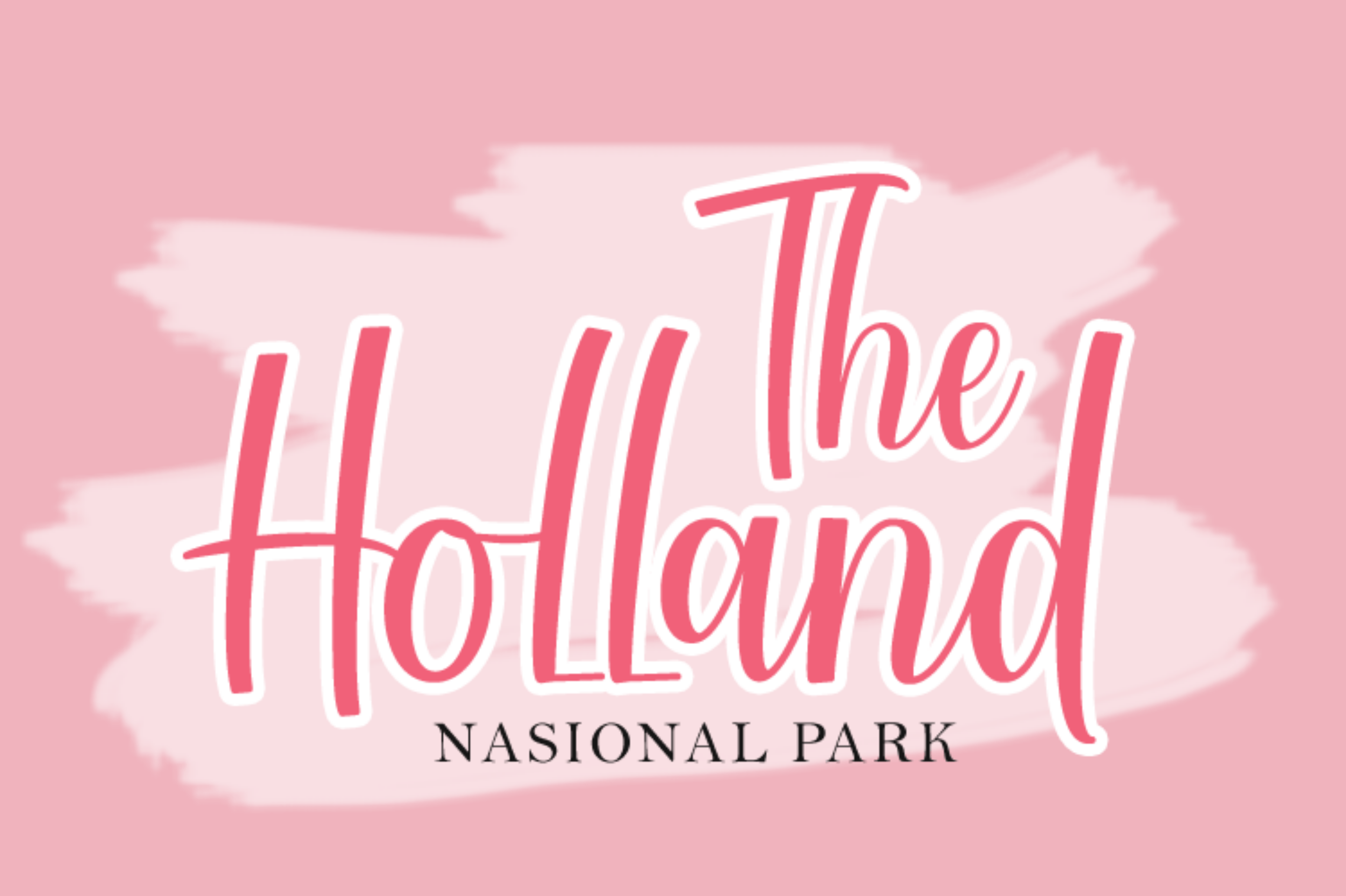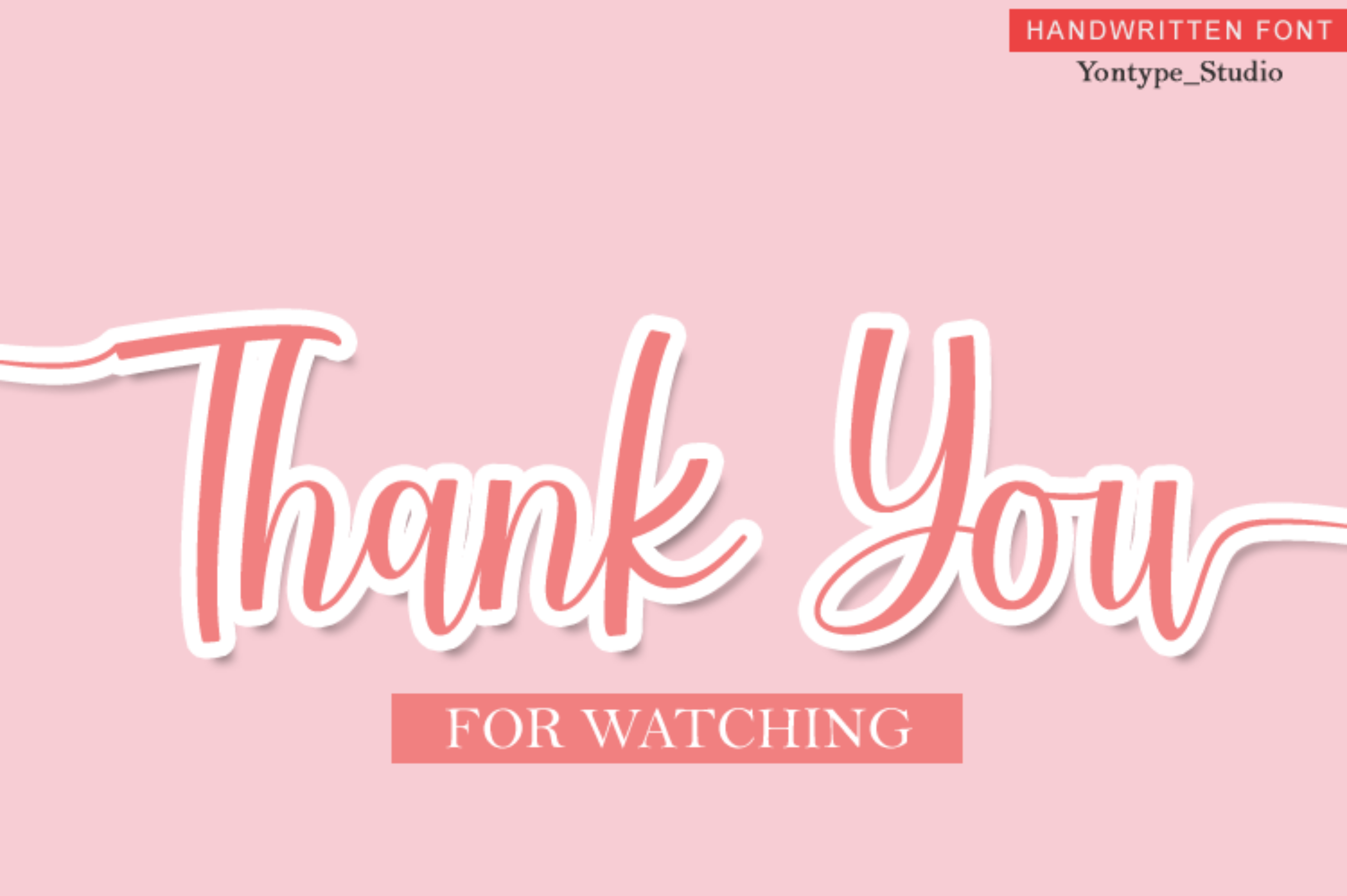
Hottmand Font
Hottmand Script Font
This is a bouncy handwritten script font. This font is perfect for svg designs, shirts, crafts, websites, farmhouse décor, christmas designs, branding, blogs, logos, invitations, and more!